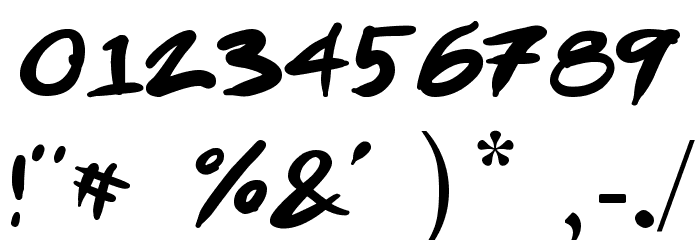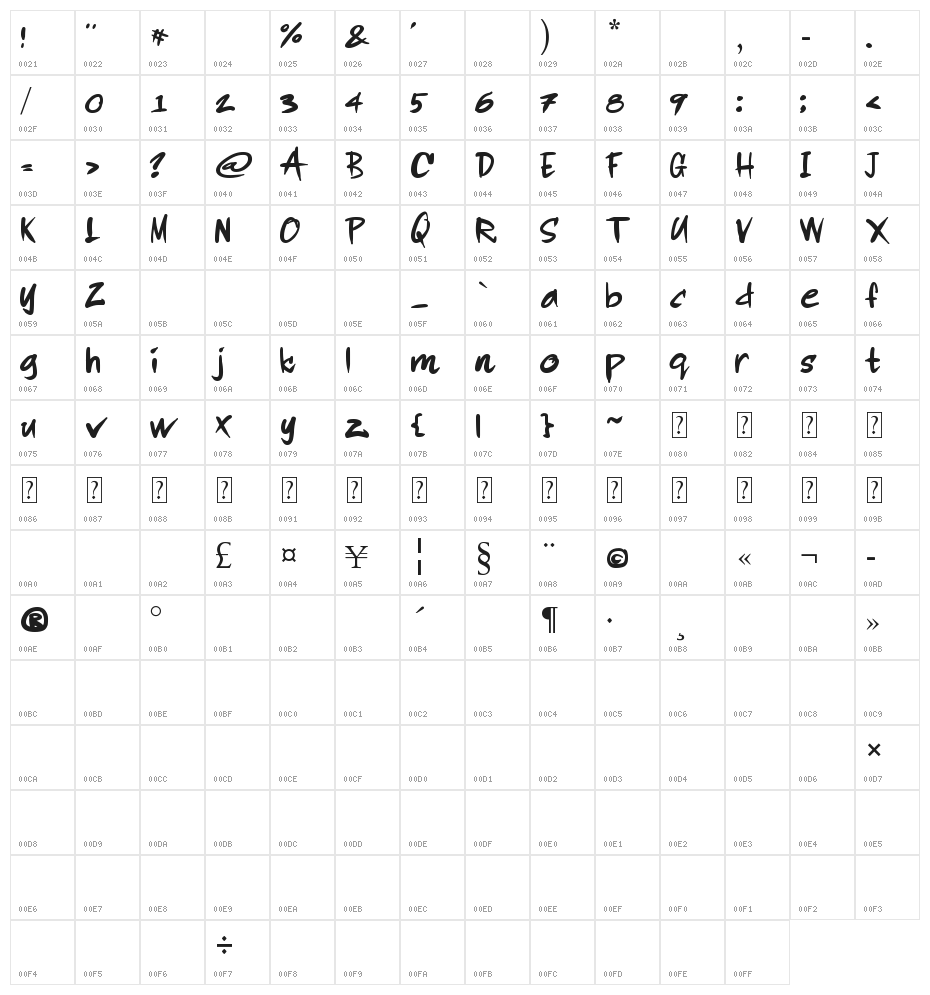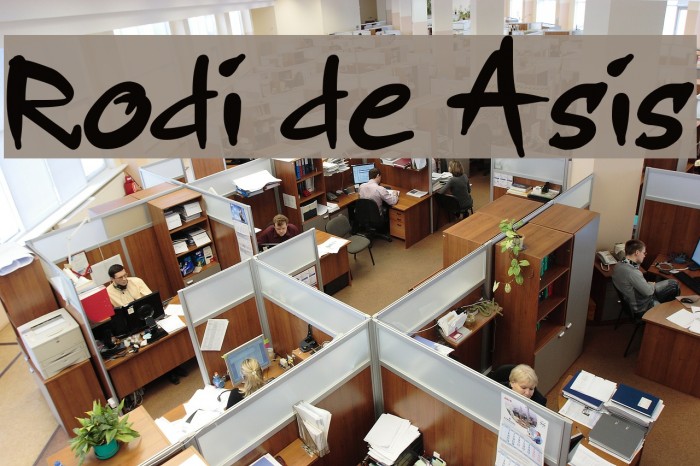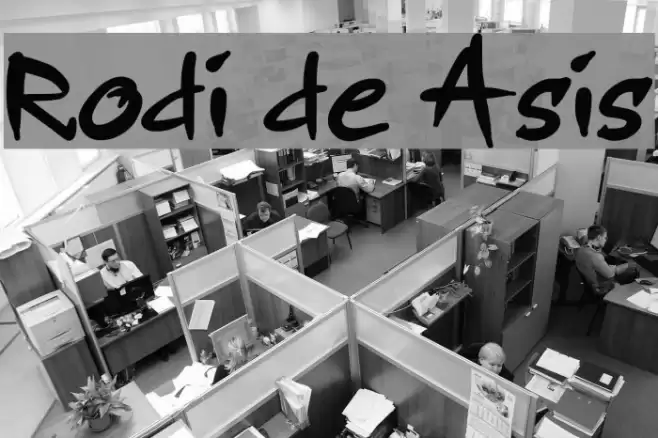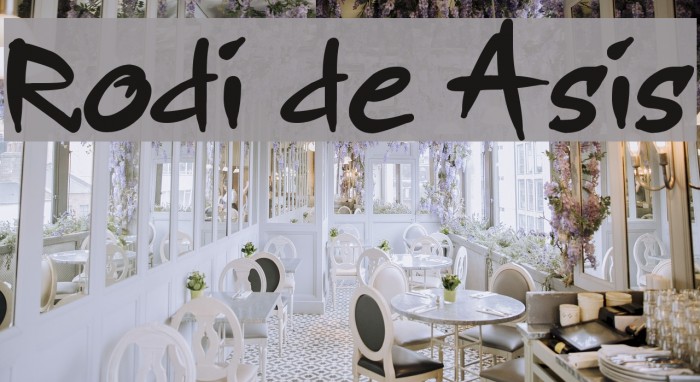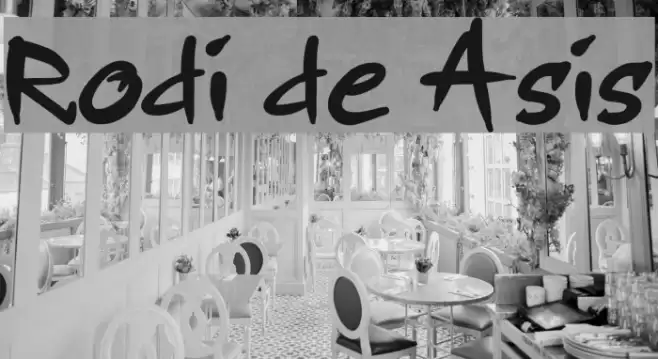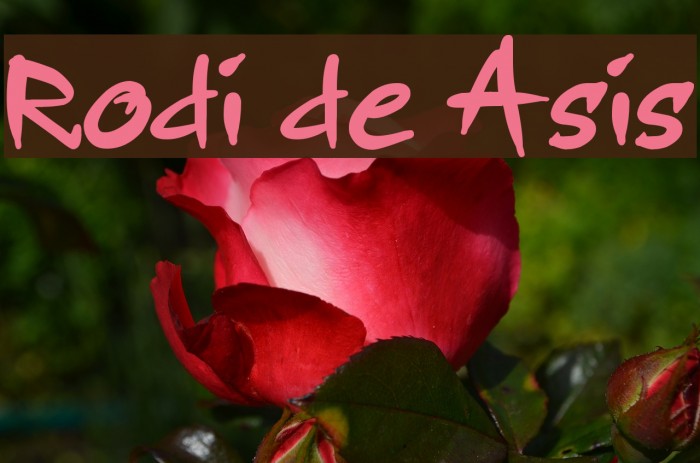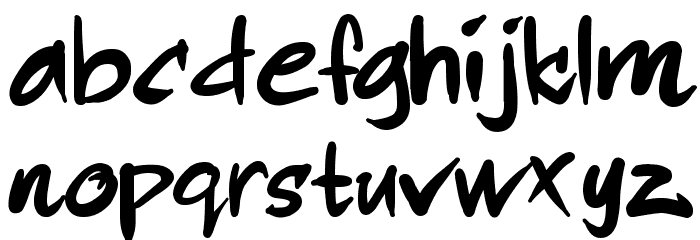
Rodi de Asis Font
Rodi de Asis Description
This font features a dynamic and energetic handwritten style, characterized by its bold and expressive strokes. The letters have a casual, yet deliberate appearance, with varying thickness that adds a sense of movement and personality. The uppercase letters are bold and slightly condensed, while the lowercase letters maintain a consistent flow with a slightly more relaxed form. The numerals are robust and maintain the same lively style, ensuring readability. Special characters are creatively integrated, matching the overall aesthetic. This font exudes a playful and informal vibe, making it ideal for projects that require a personal touch.
| Proposed Projects | Ideal for greeting cards, invitations, posters, and branding that seeks a personal and informal touch. |